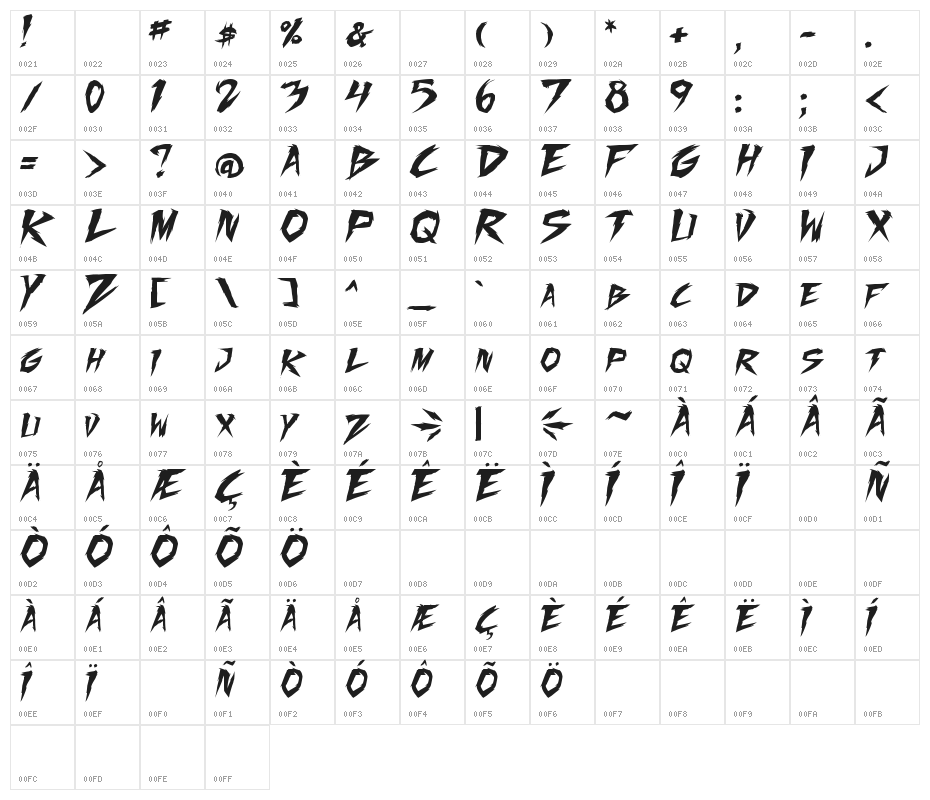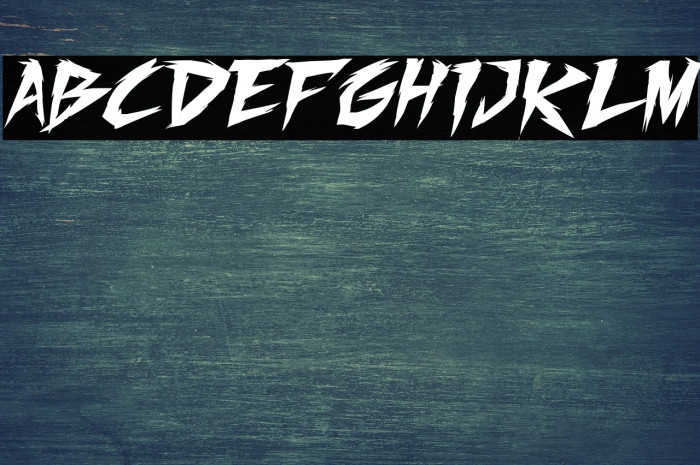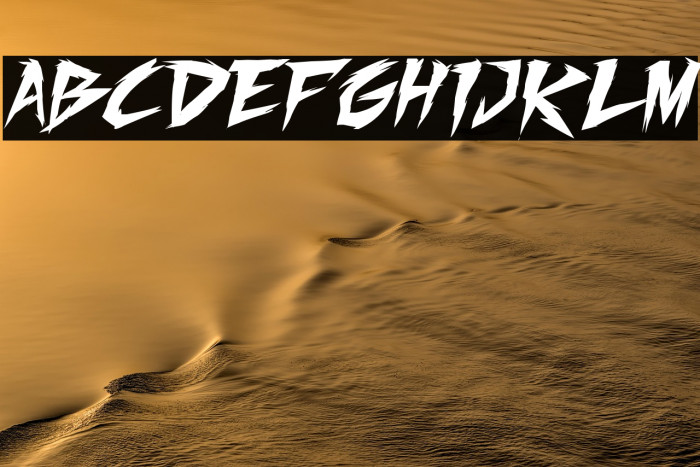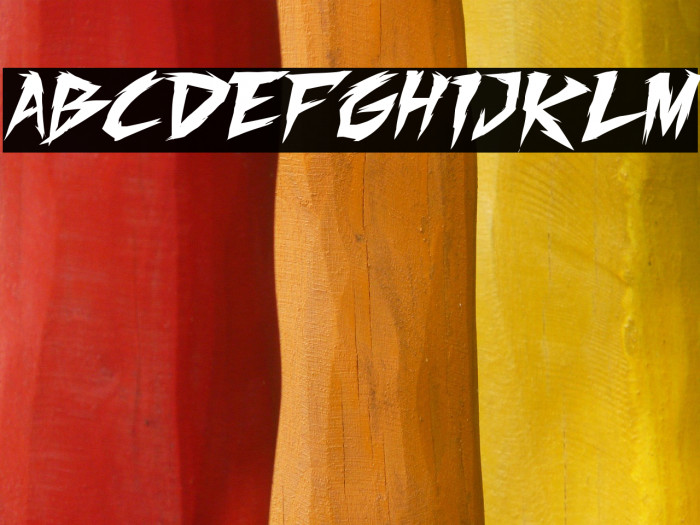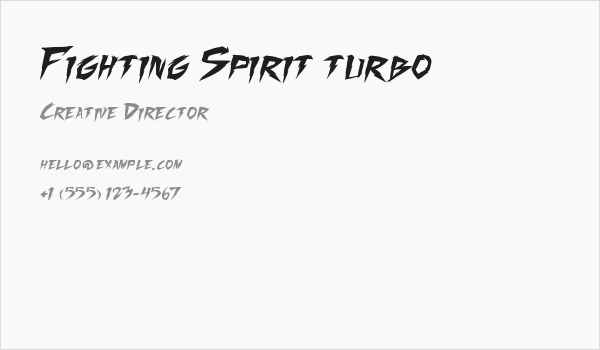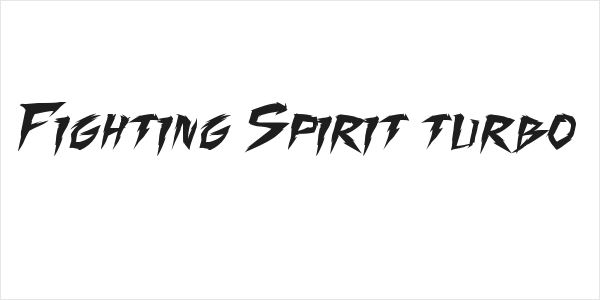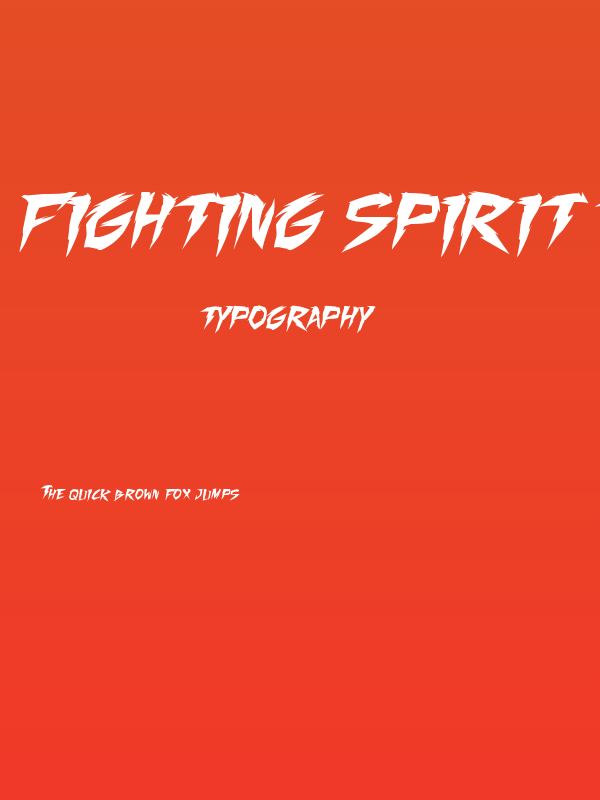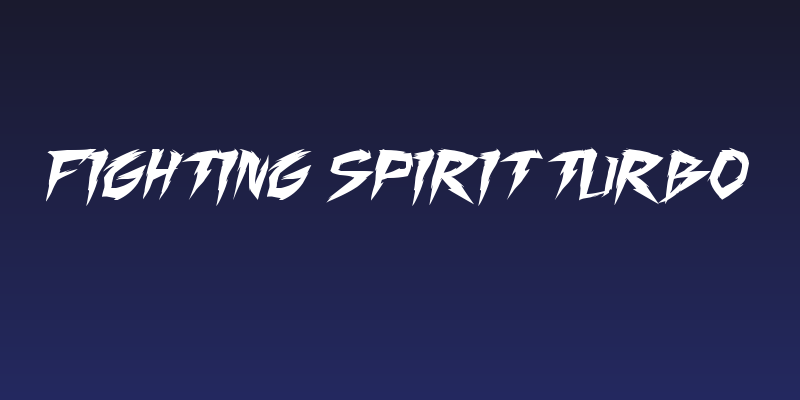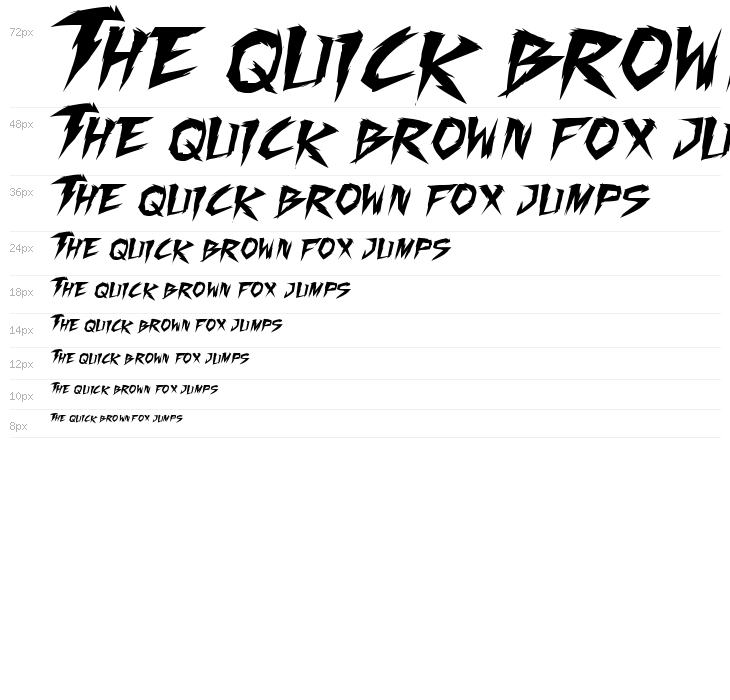
Fighting Spirit turbo Font
Fighting Spirit turbo Description
This font exudes a dynamic and aggressive energy, characterized by sharp, angular strokes and a bold presence. Each character appears to be in motion, with jagged edges that suggest speed and intensity. The uppercase and lowercase letters maintain a consistent style, emphasizing a sense of urgency and power. The numerals and special characters follow suit, adding to the overall cohesive and impactful design. This font is ideal for projects that require a strong, eye-catching display, conveying themes of action, adventure, or rebellion.
Overall StyleModern, Energetic
Proposed ProjectsPerfect for action-themed posters, video game titles, sports branding, and dynamic logos.